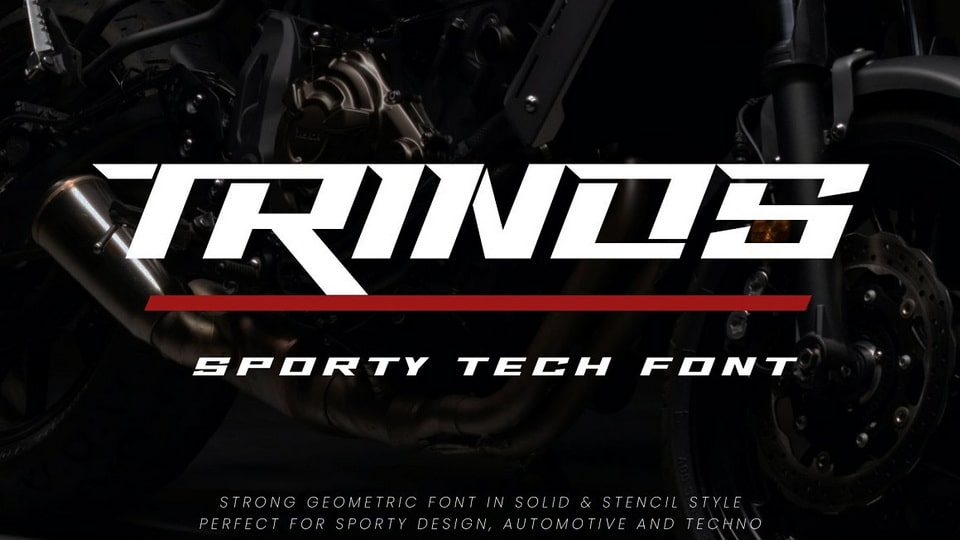
Download Trinos font, a strong character typeface that combines racing style and techno with a slightly expanded letterform and sharp edges. The sharp spur on the top of letterforms, bold weight, and fully geometric represent strength, honor, and brave.